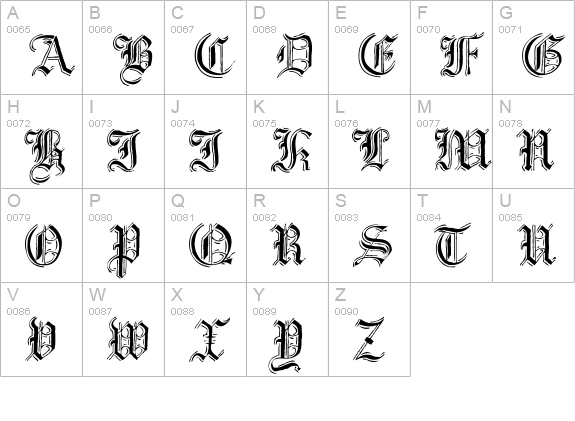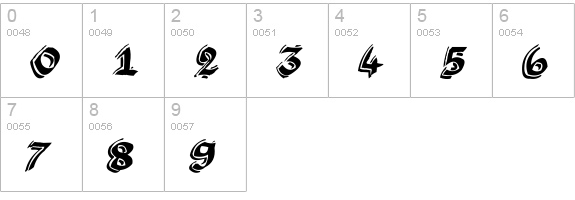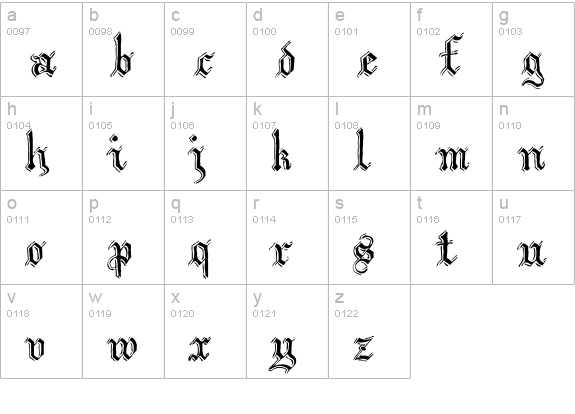
Argor Got Scaqh Font Details
Argor Got Scaqh font is a stunning typeface that combines elegance with a touch of modernity. Its sharp edges and clean lines give it a bold and commanding presence, making it perfect for headlines, logos, and other design projects that require a strong visual impact. This versatile font is suitable for a wide range of uses, from print to digital media, thanks to its excellent legibility and readability. Whether you're designing a poster, a website, or a branding identity, Argor Got Scaqh font will help you make a lasting impression on your audience. The best part is that Argor Got Scaqh font is available for free download at FontsMarket.com. So you can elevate your designs without breaking the bank. Don't miss out on this fantastic opportunity to add a touch of sophistication to your projects with this exceptional font.